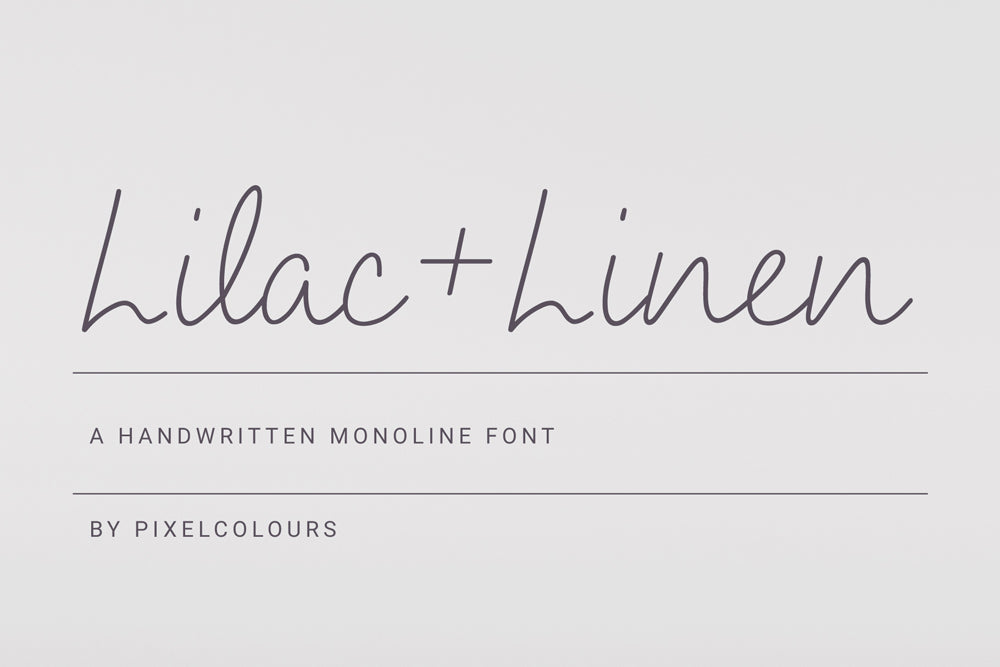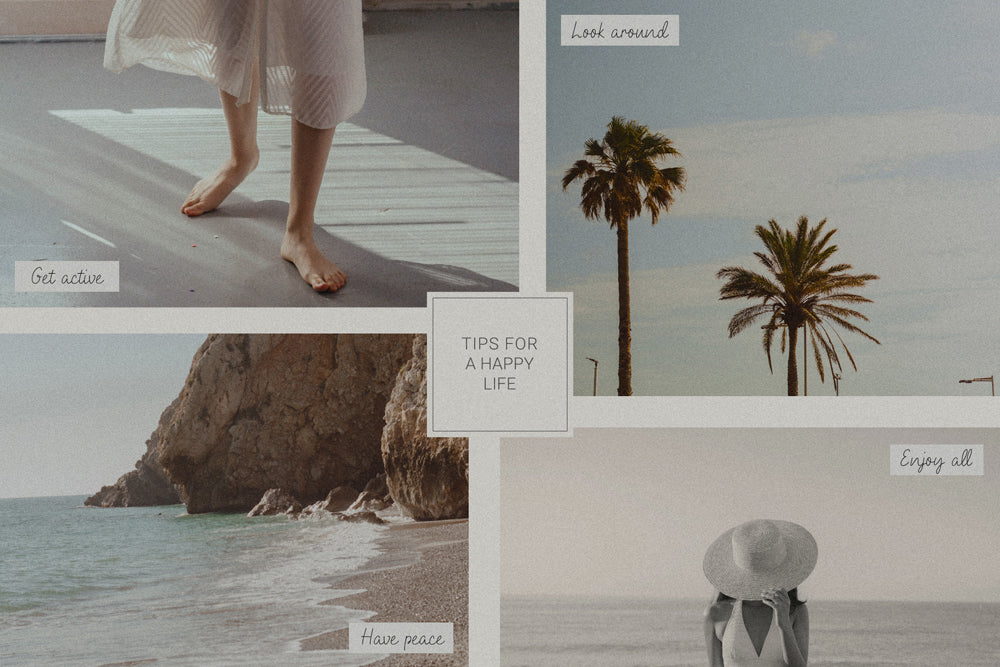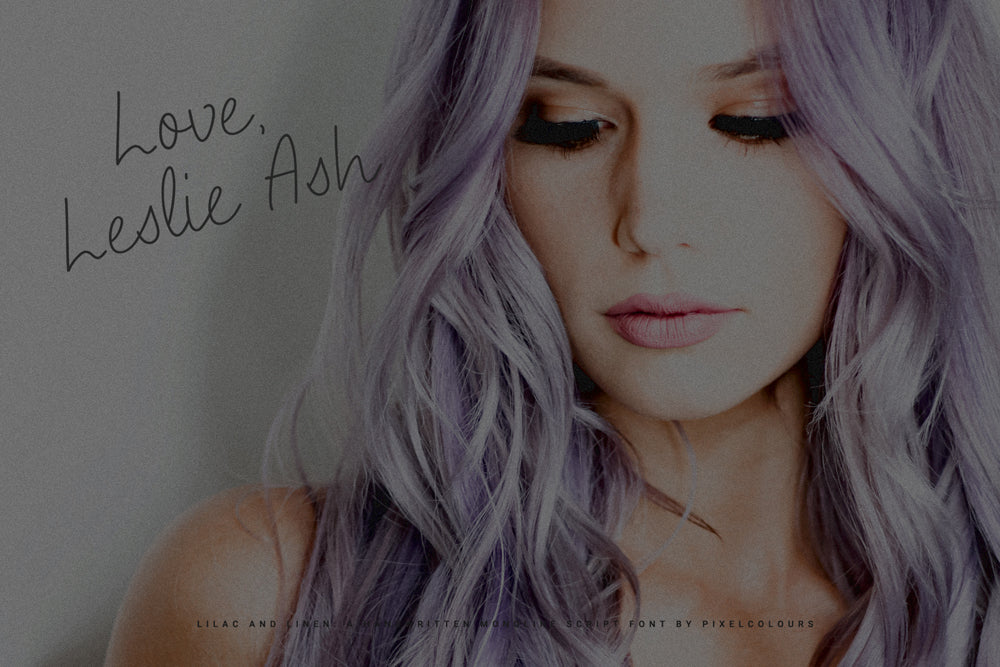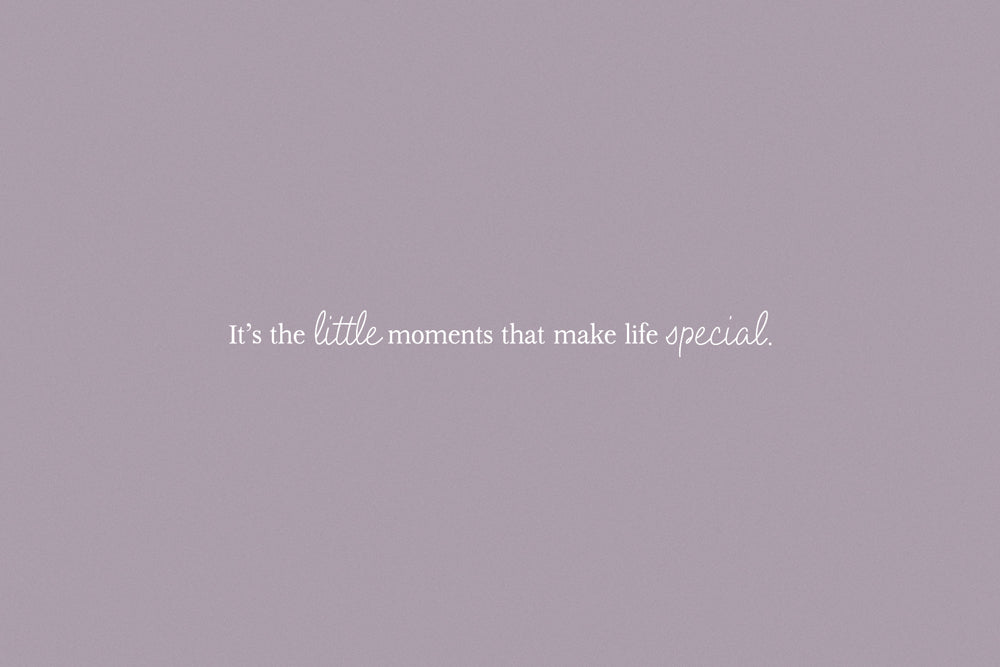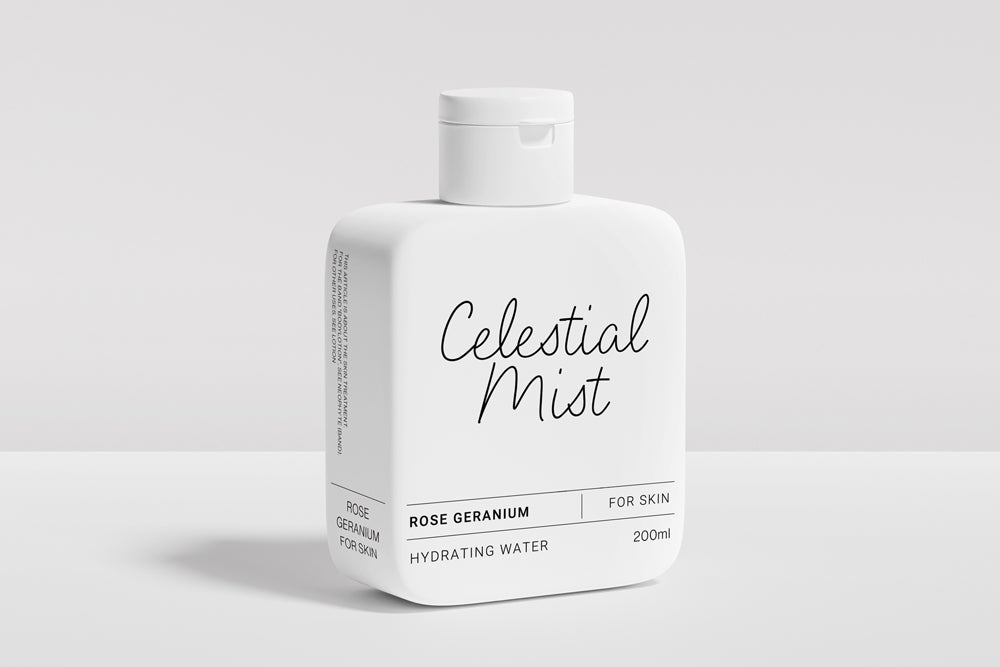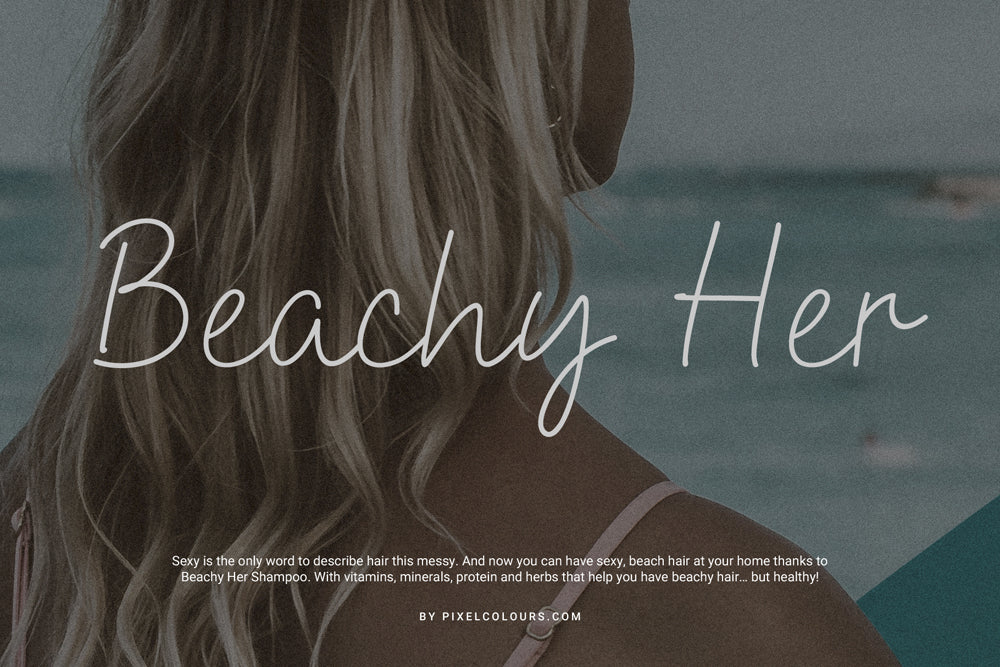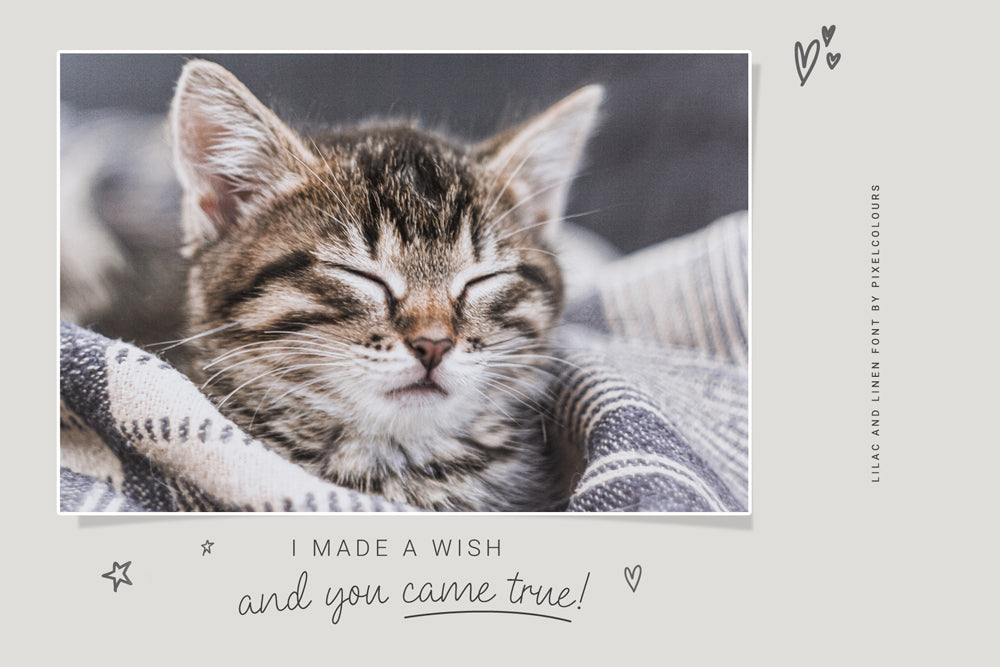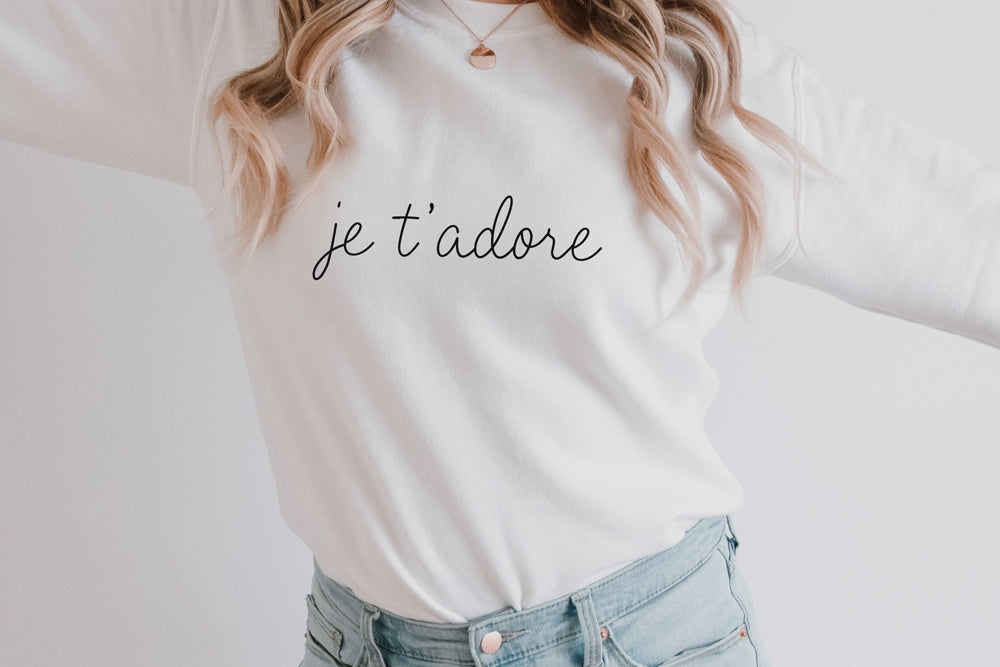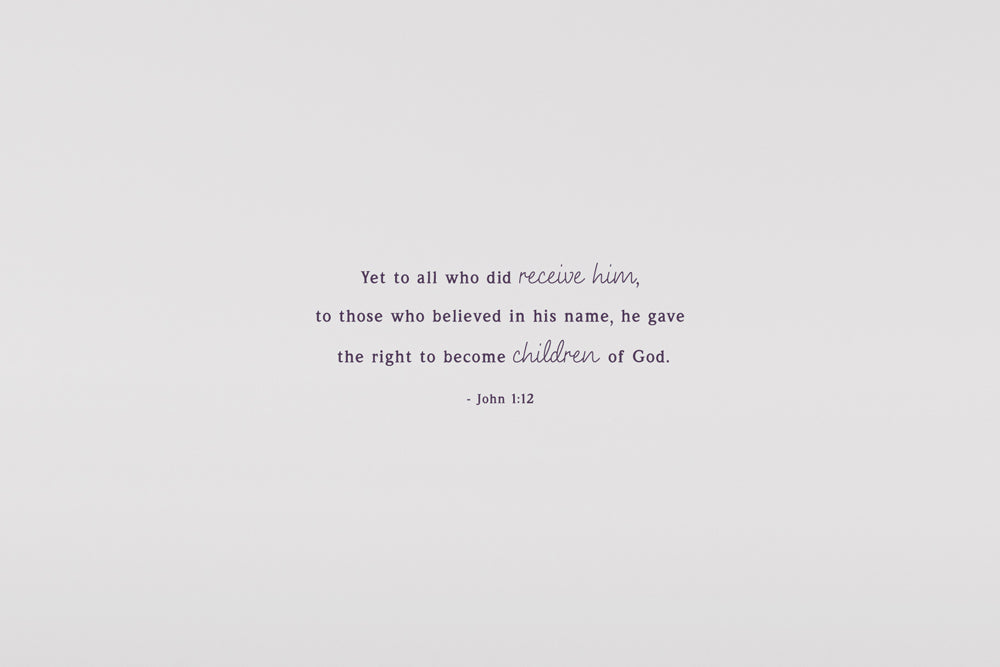
Lilac and Linen Monoline Script Font
Lilac and Linen is a chic handwritten monoline script font that has clean and flowing lines. Includes automatic ligatures and stylistic alternates to make it look as a natural handwriting. Looks great for product labels, pantry labels, stickers, social media posts, quotes, branding, etc.
- Lilac and Linen: clean monoline script font.